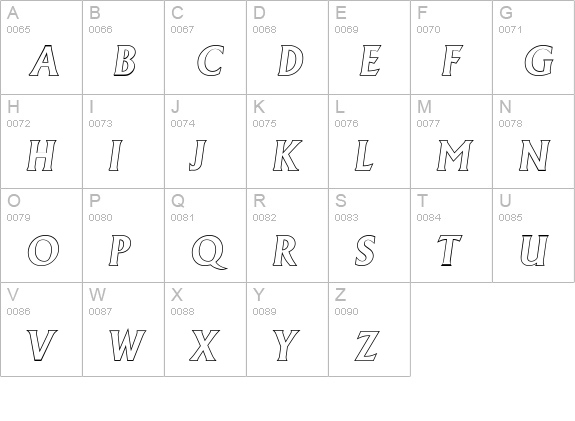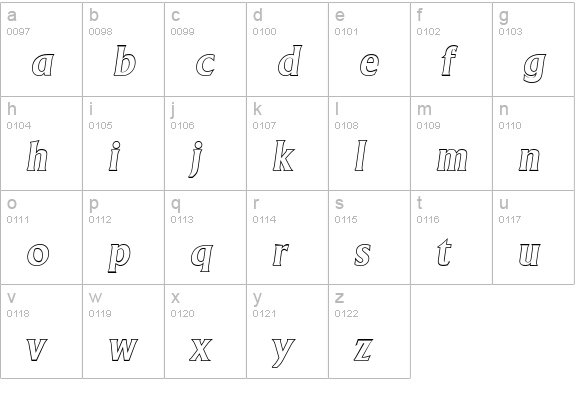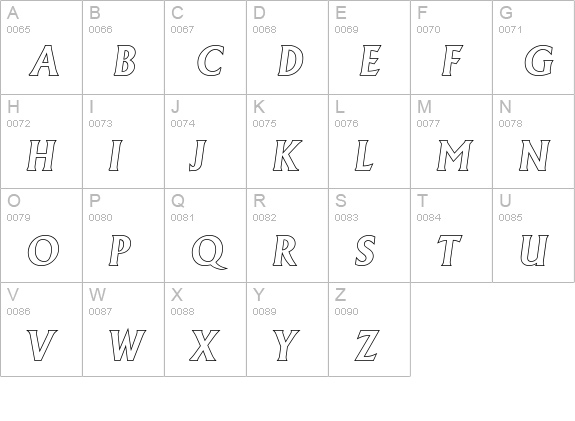
AdelonOutline-BoldItalic is a striking and sleek font that exudes elegance and sophistication. Its bold and italic design commands attention and adds a touch of modernity to any project. The sharp lines and distinctive curves of this font make it perfect for headlines, logos, and branding materials that require a strong and stylish appearance. Best of all, AdelonOutline-BoldItalic is available for free download at FontsMarket.com. This means you can easily access this stunning font and elevate your designs without any cost. Whether you're working on a professional project or a personal creative endeavor, AdelonOutline-BoldItalic offers a versatile and eye-catching option that is sure to make a statement. Don't miss out on the opportunity to enhance your design work with this exceptional typeface, now conveniently available for free at FontsMarket.com.